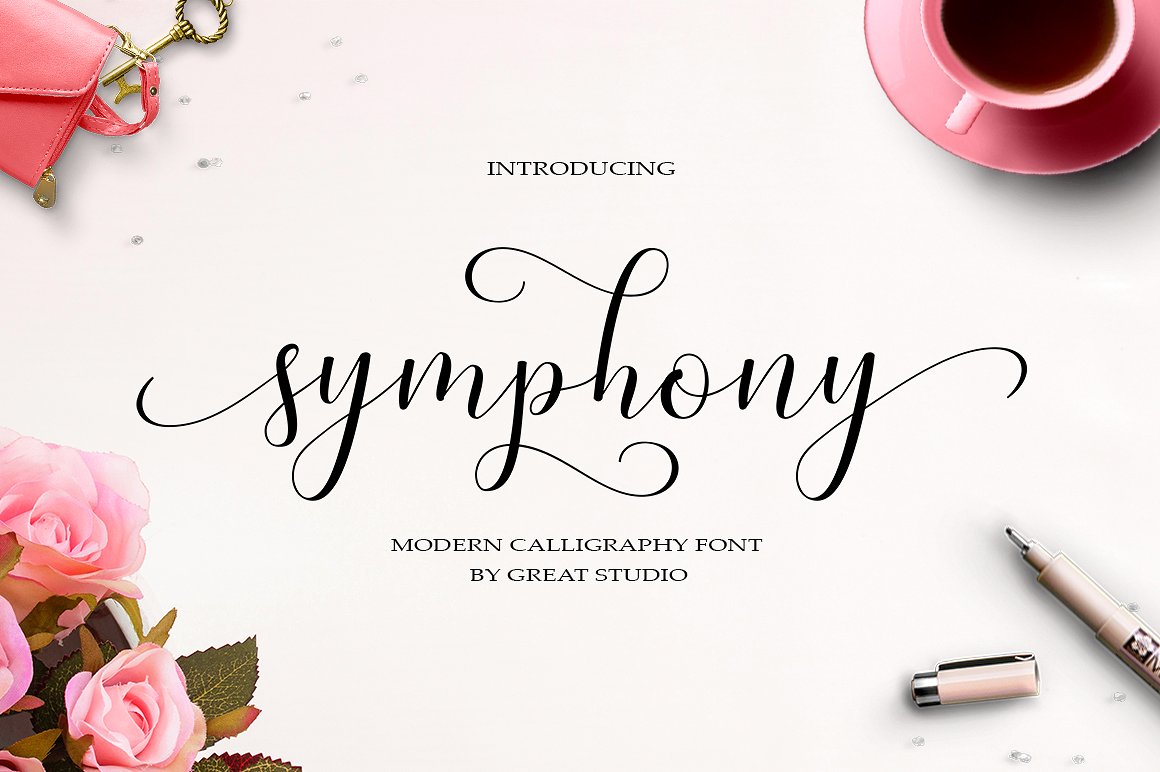
Symphony Script Font
Symphony Script is modern calligraphy design, including Regular. This font is casual and pretty with swashes. Can used for various purposes. such as logo, product packaging, wedding invitations, branding, headlines, signage, labels, signature, book covers, posters, quotes and more.